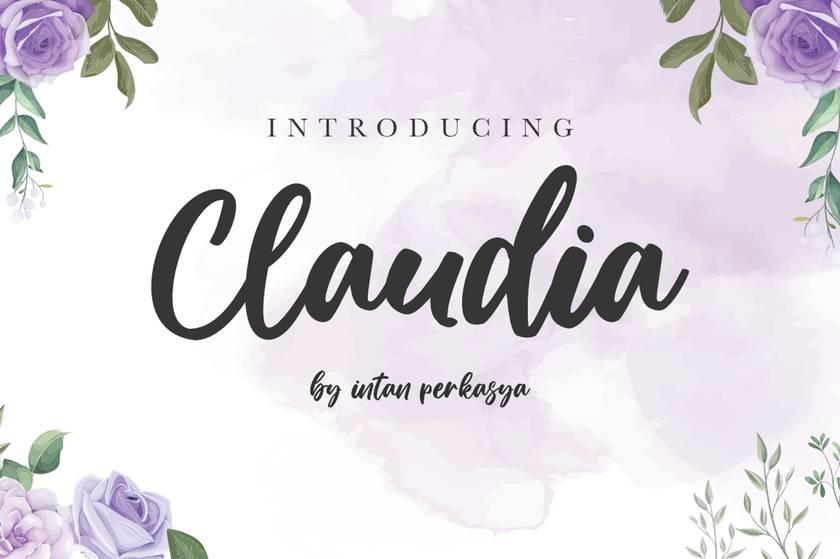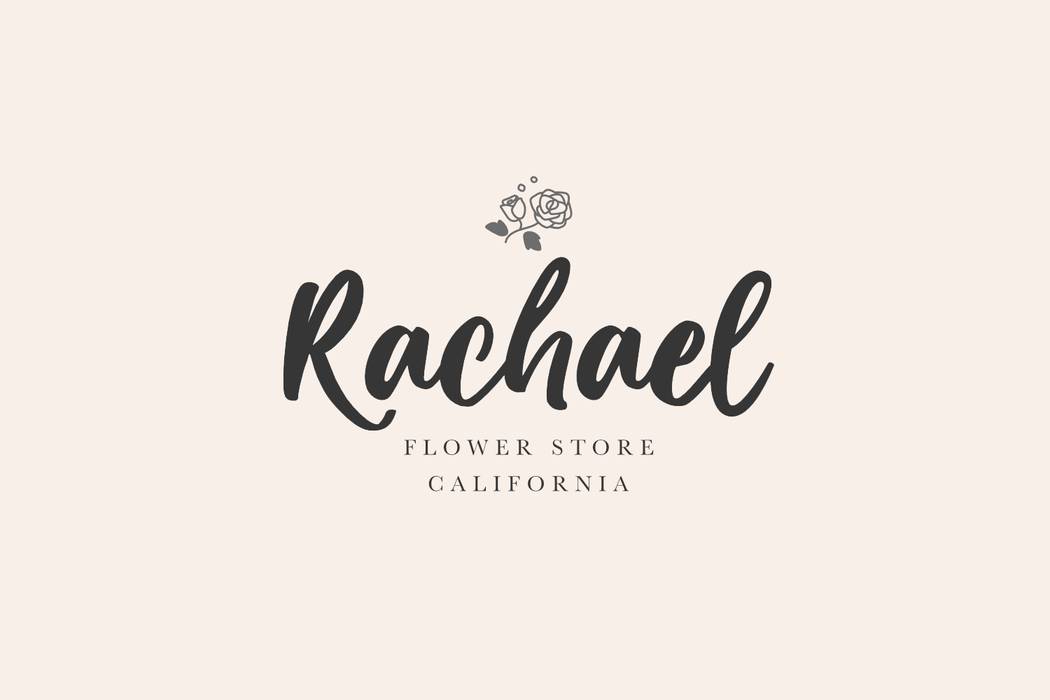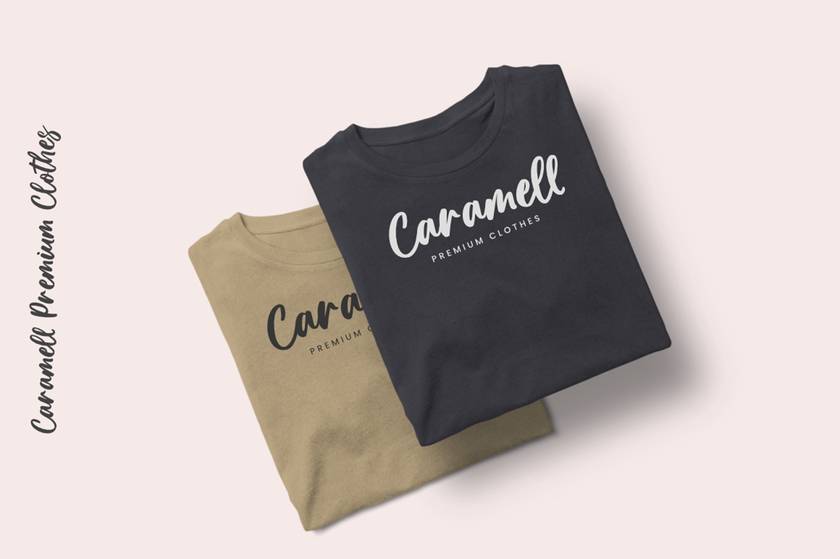
Claudia is a lively and modern script font with a bold, brush-lettered style that brings a friendly, personal touch to any design. Its smooth, flowing strokes and casual yet polished appearance make it perfect for branding, invitations, and creative projects that want to convey warmth and creativity. This font works well in headlines and logos where a dynamic, approachable vibe is desired.
Claudia Font
About Claudia Font
| Font family | Claudia Font |
| Designer | Intan Perkasya |